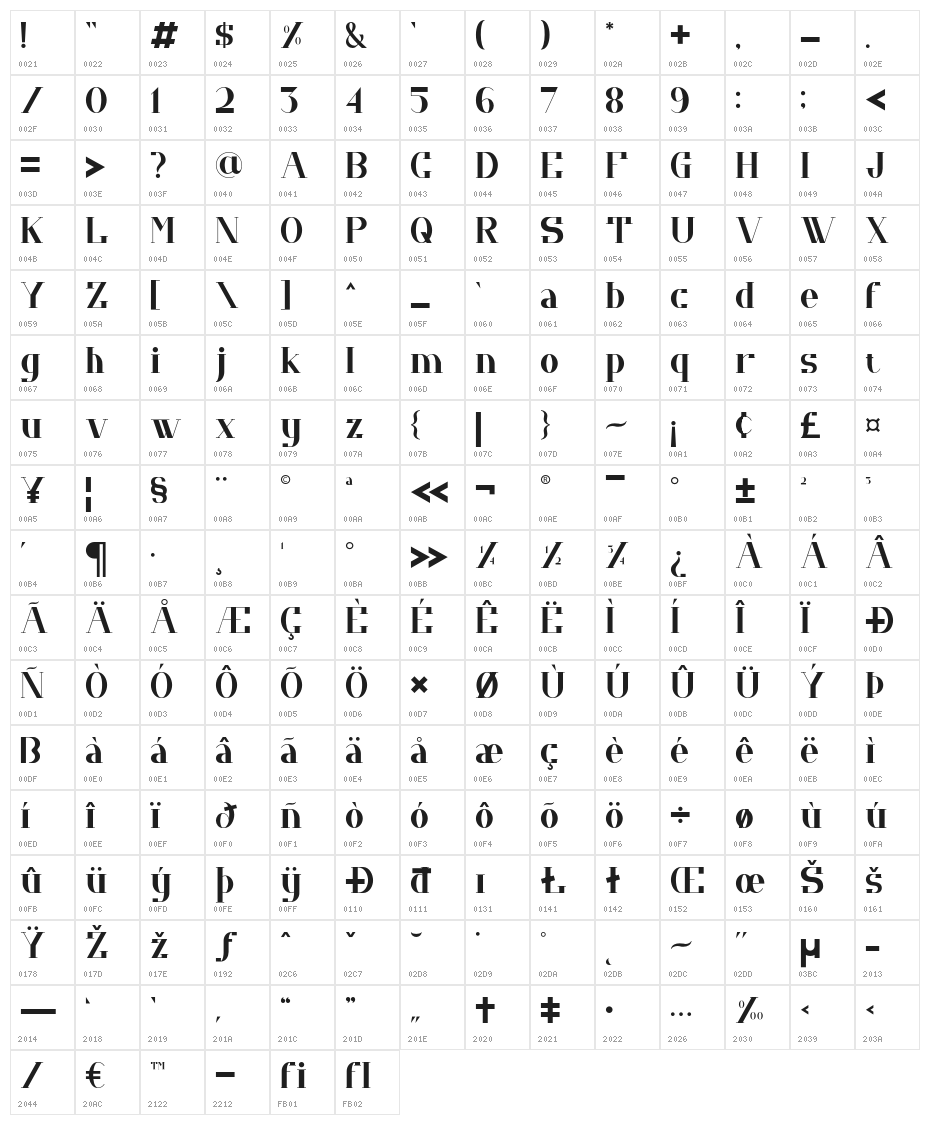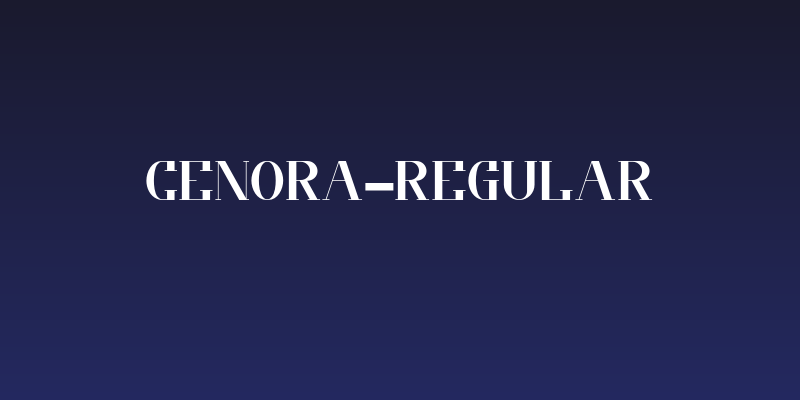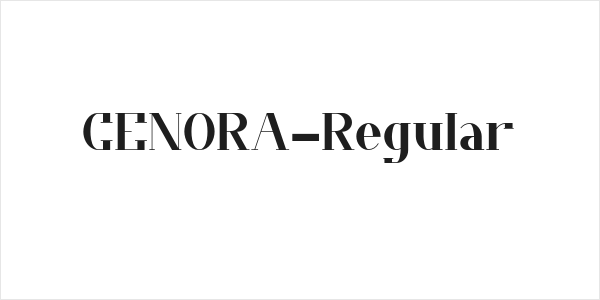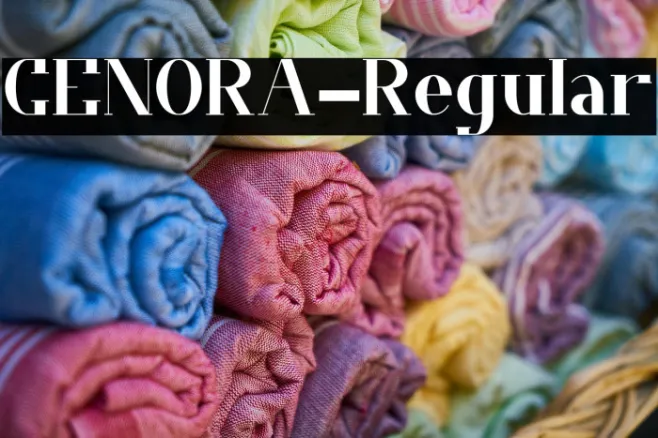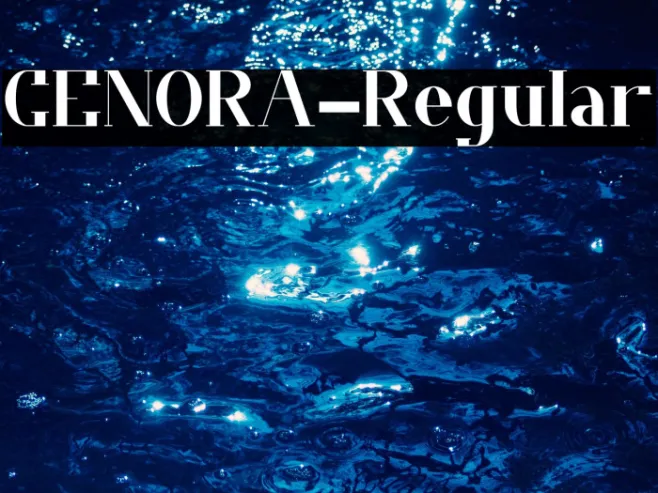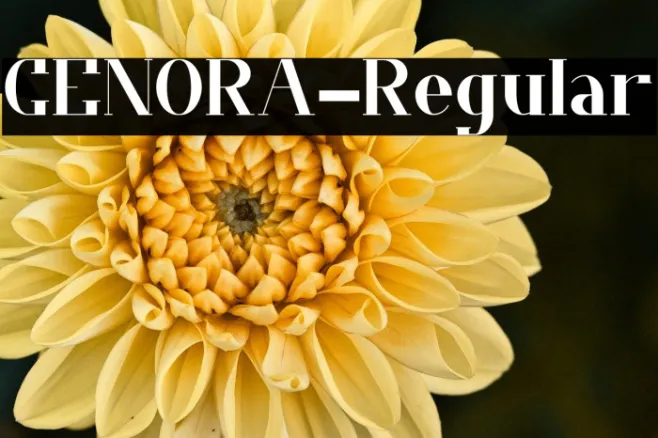
CENORA-Regular Font
CENORA-Regular Description
This font features a modern and sophisticated design with a high contrast between thick and thin strokes, giving it a dynamic and elegant appearance. The uppercase letters exhibit a strong presence with sharp, angular serifs, while the lowercase letters maintain a consistent style that complements the uppercase. The numerals are bold and distinctive, ensuring readability. Special characters are designed with the same attention to detail, making them stand out. Overall, this font combines traditional serif elements with a contemporary twist, making it versatile for various design needs.
| Proposed Projects | Ideal for branding, editorial design, and luxury product packaging. |